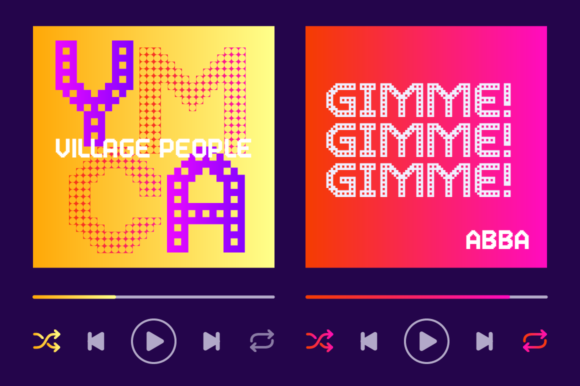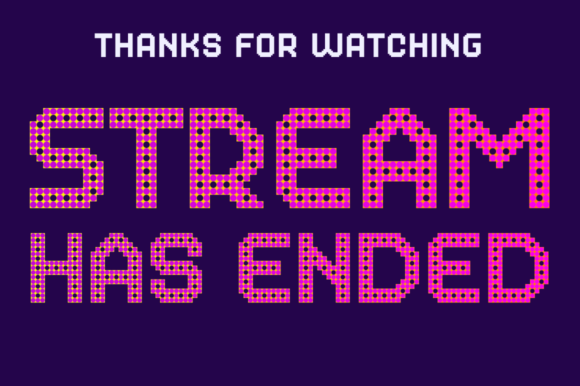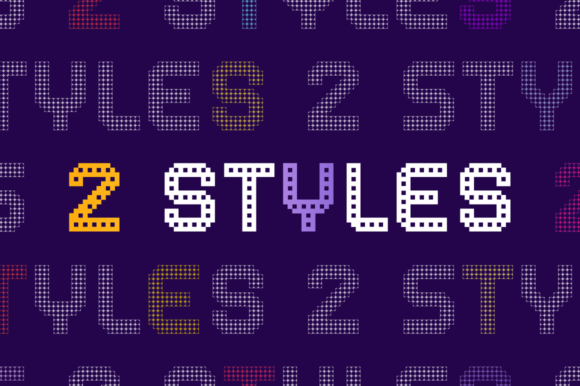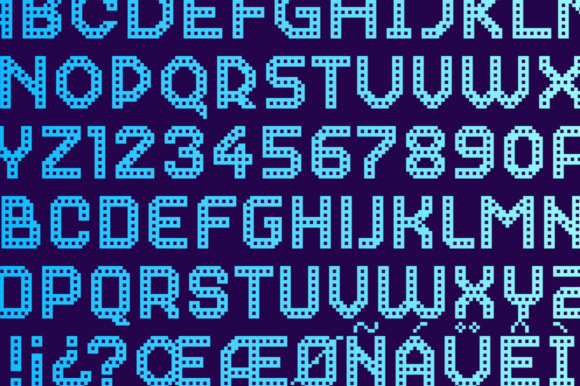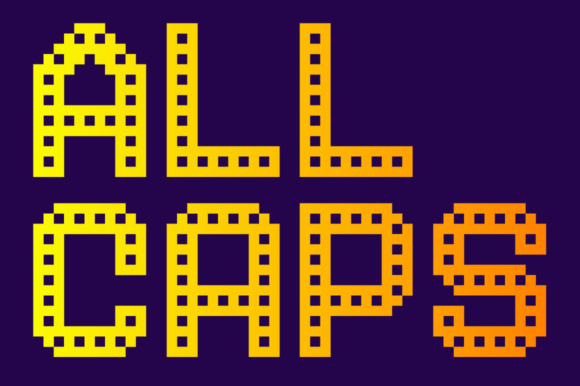
Dance Floor Mix 18 Font: A Revolutionary Typography Experience
Are you a designer or crafter looking for a unique and versatile font to elevate your creative projects? Look no further than Dance Floor Mix 18 Font! This innovative font is a fusion of display fonts, bitmap fonts, layer fonts, and geometric pattern systems, offering endless possibilities for customization and creativity.
What is Dance Floor Mix 18 Font?
Dance Floor Mix 18 Font is a cutting-edge typography system that combines four distinct font styles to create a one-of-a-kind experience. This mix contains 2 of 64 styles, allowing you to experiment with different combinations to achieve the perfect look for your project. The font is designed to be mixed and matched with other Dance Floor Mixes (from 2-17), giving you access to a vast library of typography options.
Key Features of Dance Floor Mix 18 Font
- Multi-Style Font: Dance Floor Mix 18 Font combines display fonts, bitmap fonts, layer fonts, and geometric pattern systems, offering a wide range of typography options.
- Mix and Match: With 64 styles to choose from, you can mix and match different fonts to create unique and personalized designs.
- Endless Customization: The font’s versatility allows for endless customization options, ensuring your design stands out from the crowd.
- Geometric Pattern Systems: The font’s geometric pattern systems add an extra layer of creativity, enabling you to create intricate and visually appealing designs.
Dance Floor Mix 18 Font is an ideal choice for designers and crafters looking to add a touch of uniqueness to their projects. The font’s versatility and customization options make it perfect for:
- Branding and Logo Design: Create memorable and eye-catching logos with the font’s bold and geometric styles.
- Graphic Design: Add a creative twist to your graphic designs with the font’s intricate patterns and layering options.
- Crafting and DIY Projects: Use the font to add a personal touch to your crafting and DIY projects, such as handmade cards, invitations, and scrapbooking.
| Author | cyanotype |
Dance Floor Mix 18 Font is a game-changing typography experience that offers designers and crafters a world of creative possibilities. With its unique fusion of display fonts, bitmap fonts, layer fonts, and geometric pattern systems, this font is sure to elevate your projects and set you apart from the crowd. So why wait? Download Dance Floor Mix 18 Font today and start exploring the endless possibilities of typography!